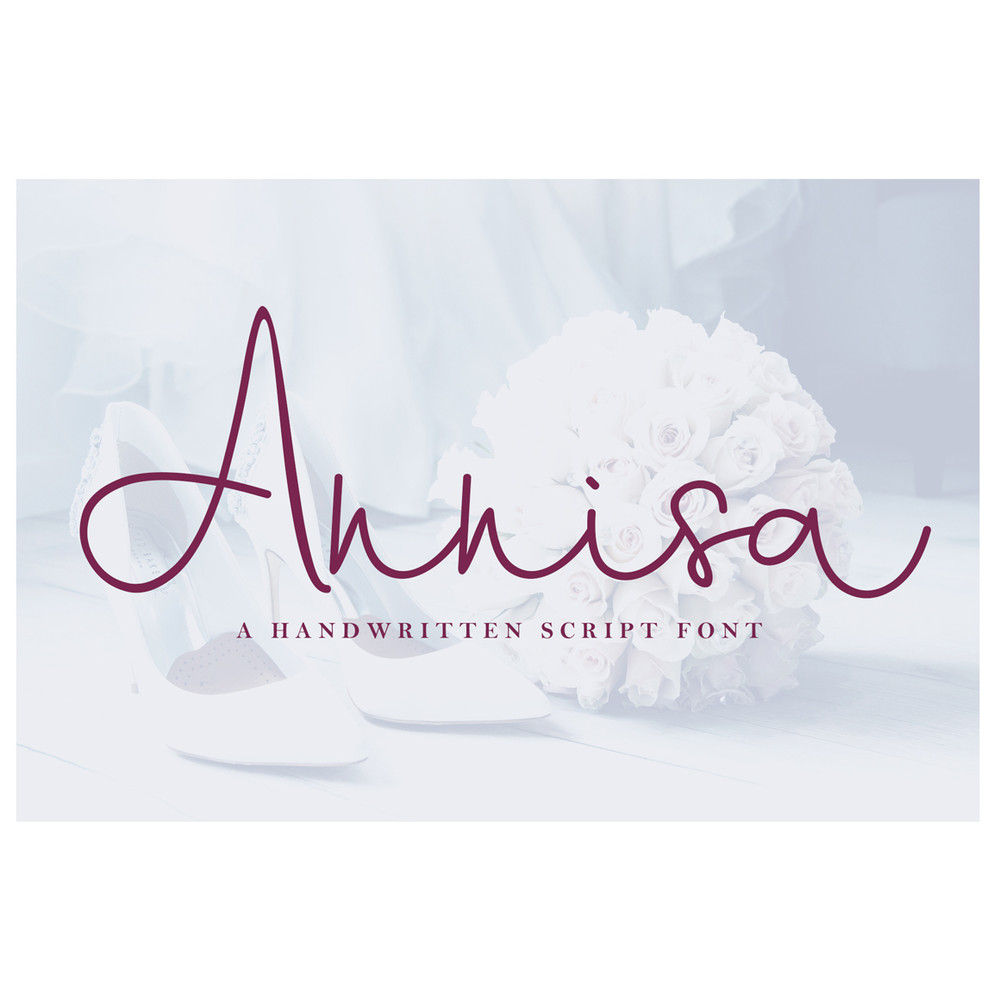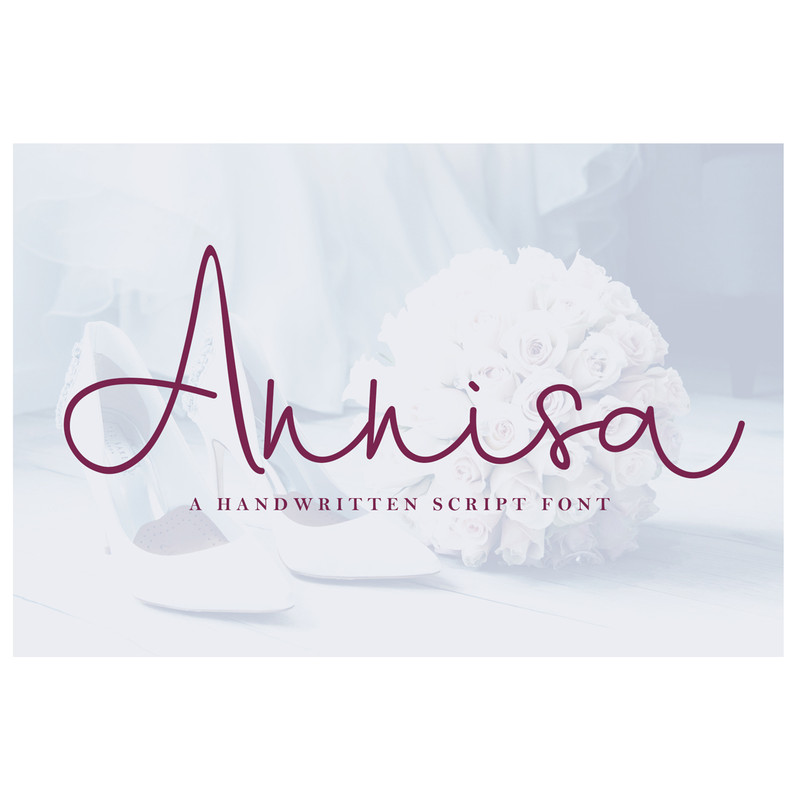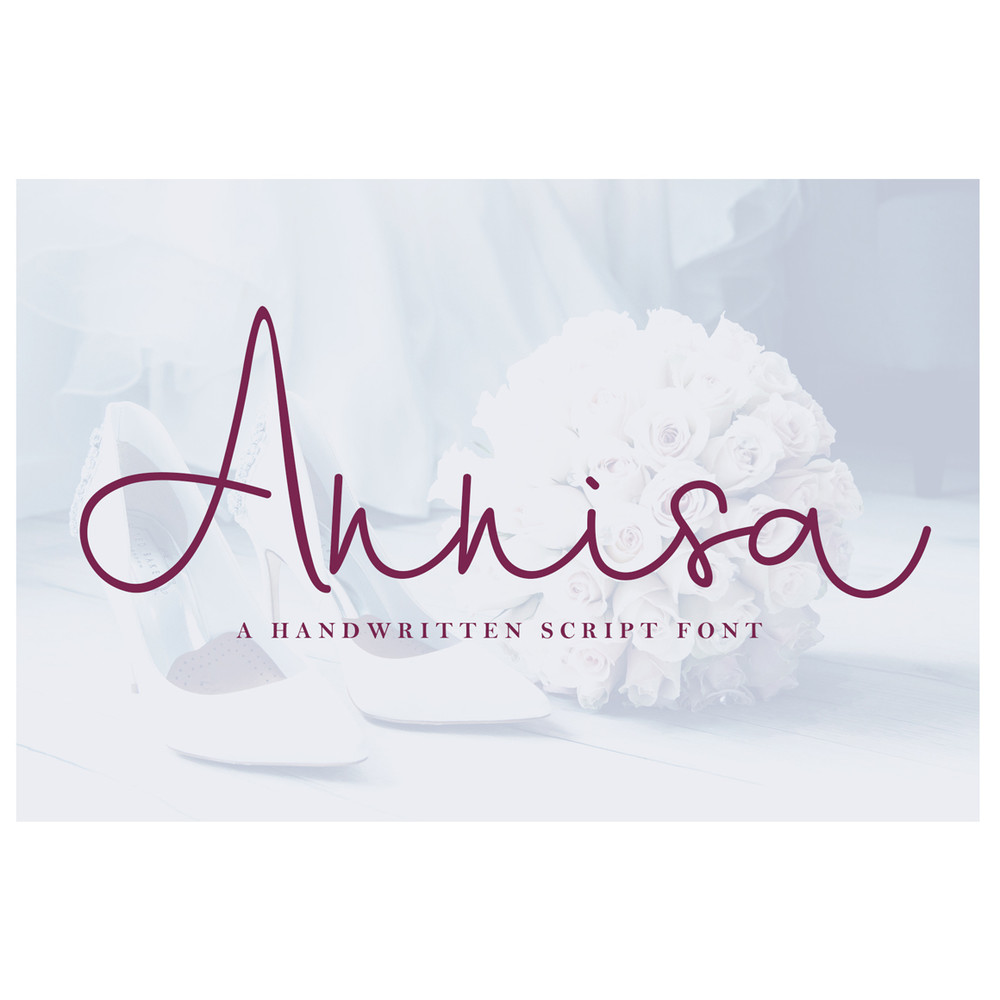
Annisa Script Font is a beautiful handwritten styled font that looks natural and elegant in a wide range of design concepts.
This monoline font is a great signature font that can be used to give your projects a modern and casual flair.